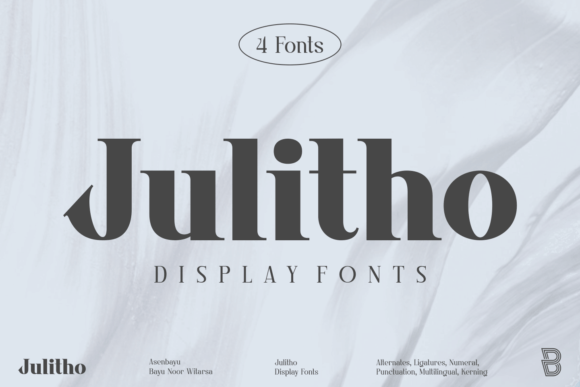
Introducing Julitho Font: The Perfect Blend of Style and Integrity
In the world of typography, fonts play a crucial role in conveying the tone and personality of a brand. A well-designed font can elevate a brand’s visual identity and make it stand out from the competition. One such font that has been making waves in the design community is Julitho Font. In this article, we’ll take a closer look at Julitho Font, its features, and how it can be used to enhance high-end projects.
What is Julitho Font?
Julitho Font is a demi-serif display font that boasts a strong and elegant appearance. It’s a unique blend of style and integrity, making it an ideal choice for a wide range of high-end projects. The font’s design is characterized by its clean lines, subtle curves, and a perfect balance of bold and delicate elements.
Key Features of Julitho Font
- Strong and Elegant Appearance: Julitho Font has a commanding presence, making it perfect for headlines, logos, and other high-impact applications.
- Demi-Serif Design: The font’s demi-serif design gives it a unique and distinctive look that’s both modern and sophisticated.
- High-End Aesthetic: Julitho Font is designed to add a touch of luxury and sophistication to any project, making it ideal for high-end applications.
- Versatile: The font’s versatility makes it suitable for a wide range of projects, from fashion branding to cosmetics packaging.
Use Cases for Julitho Font
Julitho Font is an incredibly versatile font that can be used in a variety of high-end projects. Here are some examples of how you can use Julitho Font:
- Fashion Branding: Julitho Font is perfect for fashion brands that want to convey a sense of luxury and sophistication.
- Cosmetics Packaging: The font’s elegant appearance makes it an excellent choice for cosmetics packaging, adding a touch of high-end quality to your products.
- Headlines: Julitho Font is designed to make a statement, making it ideal for headlines and titles.
- Logos: The font’s strong and elegant appearance makes it perfect for logos and branding applications.
Benefits of Using Julitho Font
Using Julitho Font can bring numerous benefits to your design projects. Here are some of the advantages of using Julitho Font:
- Enhances Brand Identity: Julitho Font can help elevate your brand’s visual identity and make it stand out from the competition.
- Conveys Luxury and Sophistication: The font’s elegant appearance can convey a sense of luxury and sophistication, making it perfect for high-end applications.
- Increases Readability: Julitho Font is designed to be highly readable, making it easy for your audience to engage with your content.
- Versatile: The font’s versatility makes it suitable for a wide range of projects and applications.
Tips for Using Julitho Font Effectively
To get the most out of Julitho Font, here are some tips for using it effectively:
- Use it for Headlines and Titles: Julitho Font is designed to make a statement, making it perfect for headlines and titles.
- Pair it with Other Fonts: Julitho Font can be paired with other fonts to create a unique and visually appealing typography.
- Experiment with Different Sizes: The font’s elegant appearance can be enhanced by experimenting with different sizes and font weights.
- Use it Consistently: To maintain brand consistency, use Julitho Font consistently across all your design projects.
Julitho Font is a demi-serif display font that offers a perfect blend of style and integrity. Its strong and elegant appearance makes it an ideal choice for high-end projects, from fashion branding to cosmetics packaging. With its versatility, readability, and luxurious aesthetic, Julitho Font is sure to elevate your design projects and make them stand out from the competition.
FAQs About Julitho Font
- What is Julitho Font?: Julitho Font is a demi-serif display font designed for high-end projects.
- What are the key features of Julitho Font?: Julitho Font has a strong and elegant appearance, demi-serif design, high-end aesthetic, and versatility.
- How can I use Julitho Font?: Julitho Font can be used for fashion branding, cosmetics packaging, headlines, logos, and more.
- What are the benefits of using Julitho Font?: Julitho Font can enhance brand identity, convey luxury and sophistication, increase readability, and offer versatility.